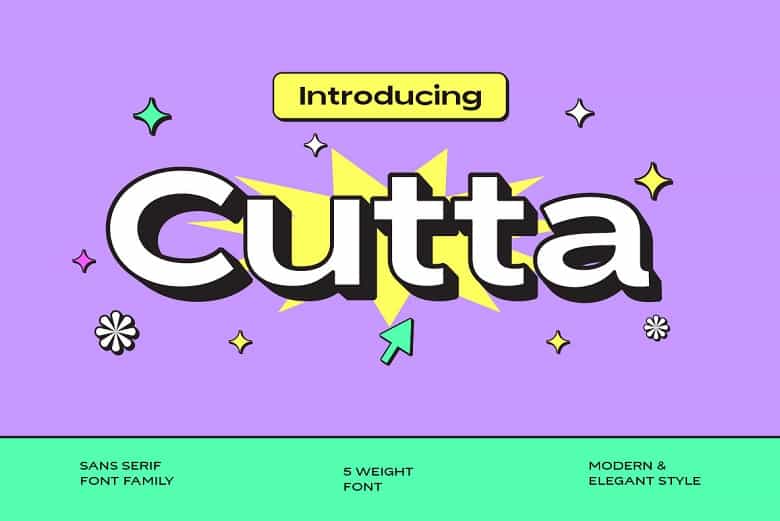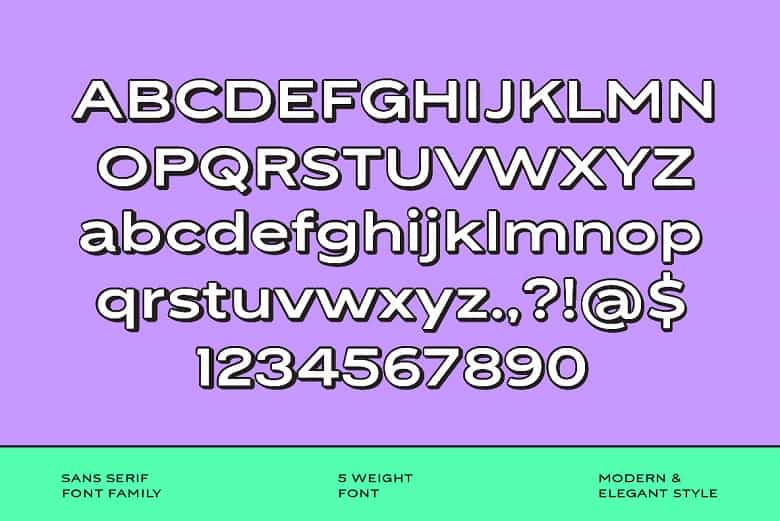
Cutta is a modern & elegant sans serif font styles, which help to bring any idea to life. From the more subtle fonts that are slimmer and lighter to the bolder and possibly, heavier fonts, these fonts enable you to style your text in whichever way that best suits your design.